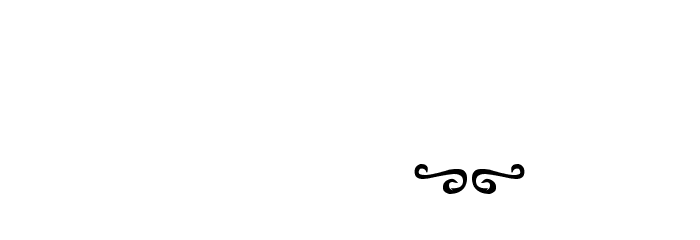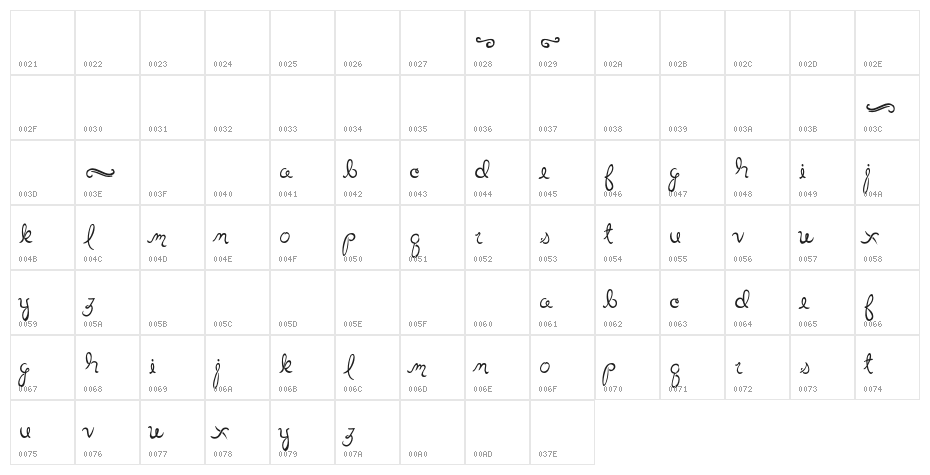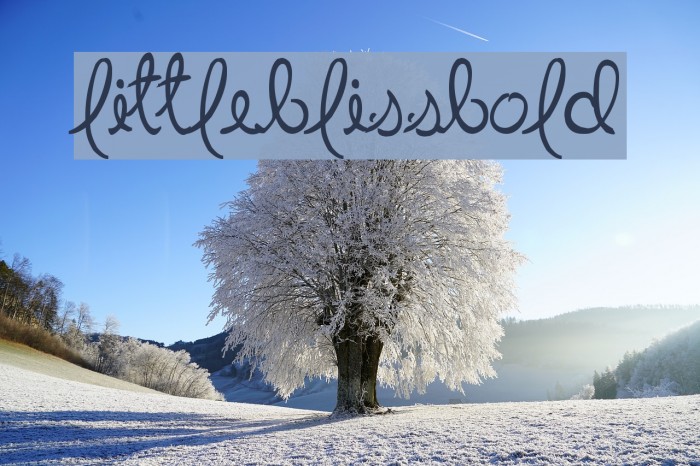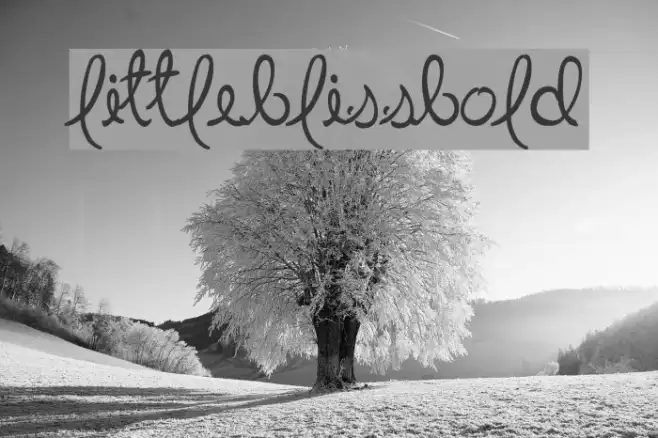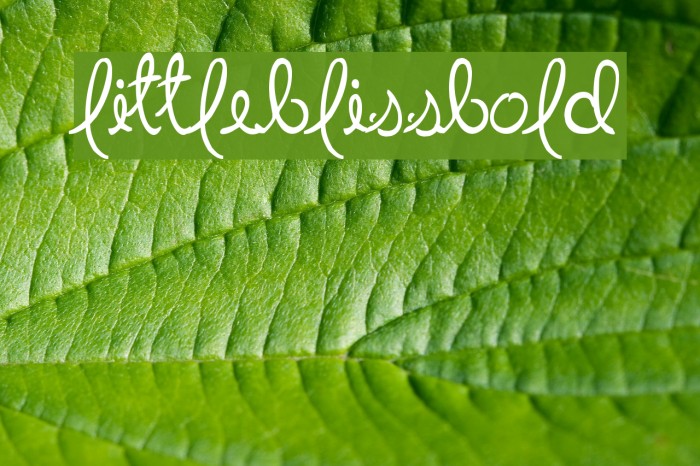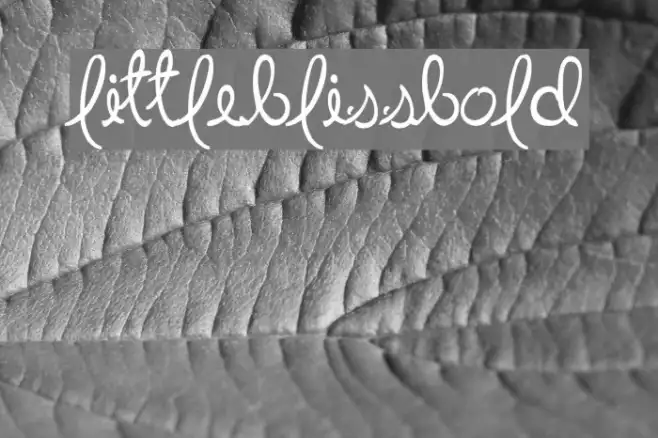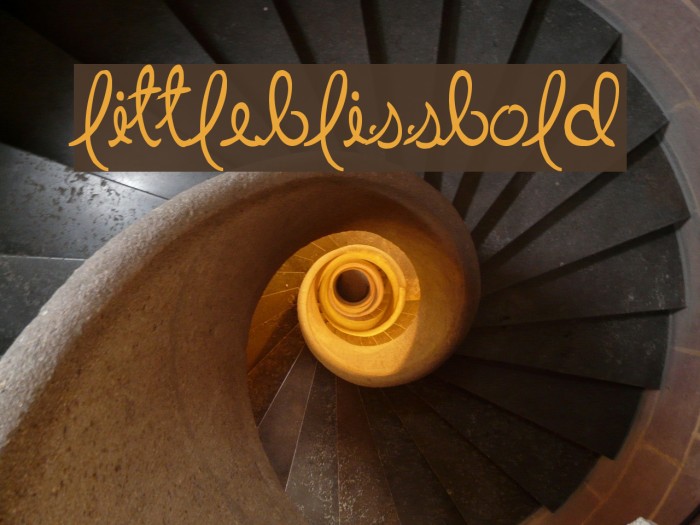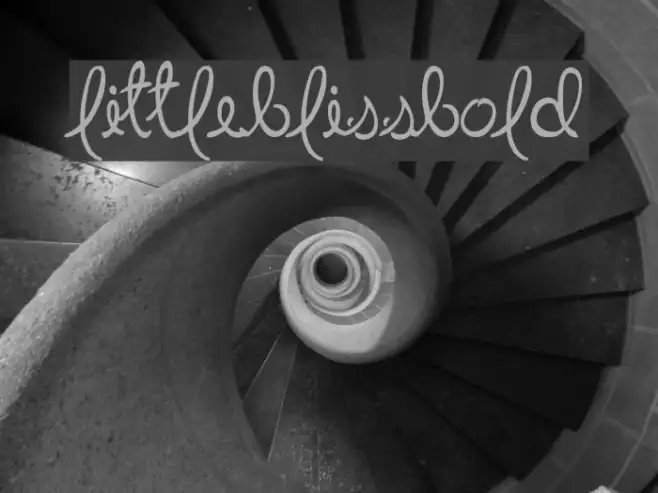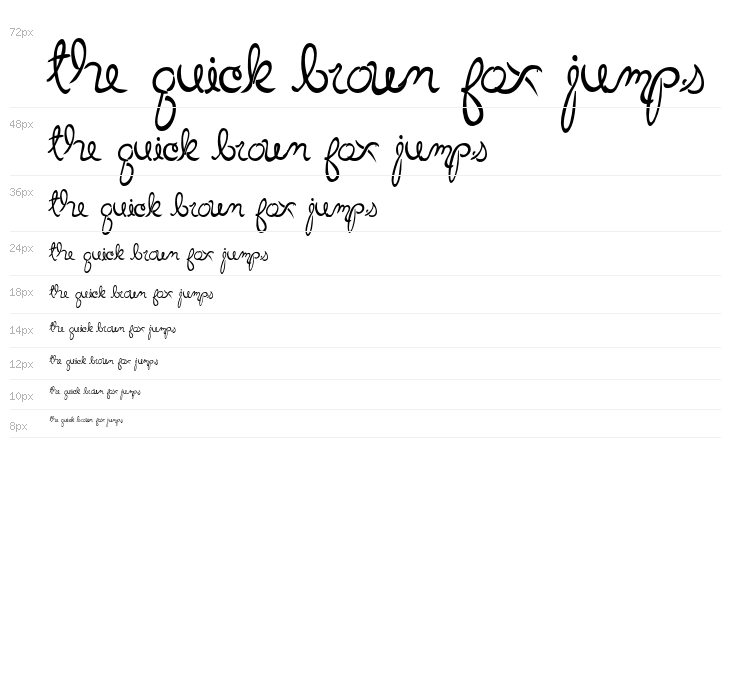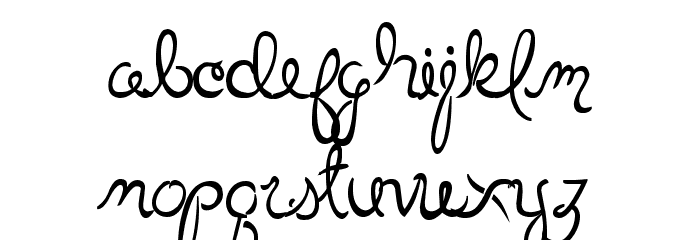
LittleBlissBold Font
This font exudes a playful and whimsical charm with its flowing, cursive style. Each letter is crafted with a sense of fluidity and elegance, featuring loops and curves that give it a handwritten feel. The strokes are consistent in thickness, providing a uniform appearance that enhances readability while maintaining a decorative flair. The font's unique character is highlighted by its distinctive swirls and embellishments, making it ideal for projects that require a touch of creativity and personality. Its overall design is both modern and artistic, capturing attention with its lively and dynamic form.
| Use Case | Logos, Invitations, Greeting Cards |
| Proposed Projects | Ideal for greeting cards, invitations, branding, and creative projects that require a personal touch. |